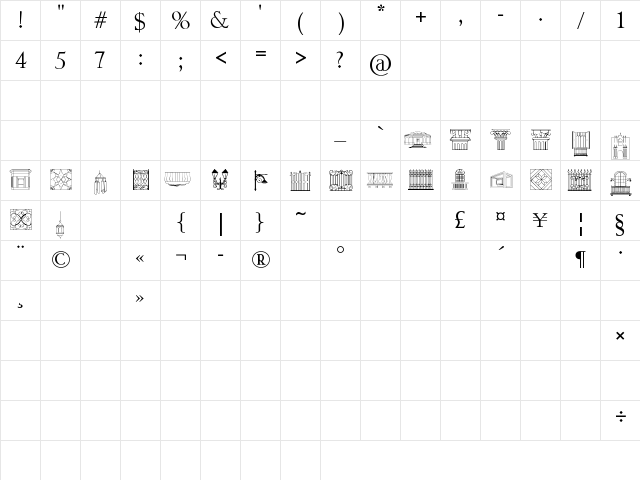
Iconos prado Regular
Design Context for Iconos prado Typeface
Iconos prado takes a measured approach to typography — its balanced proportions and neutral character make it a reliable workhorse for both digital and print work.